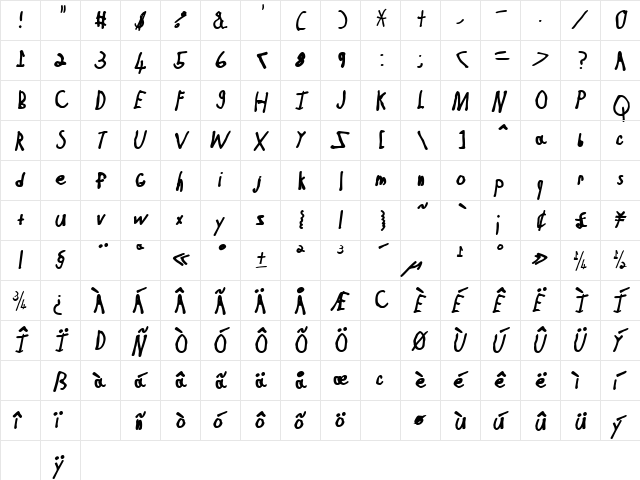
Jessica Bold-Oblique Font Preview
Jessica Bold-Oblique
Design Context for Jessica Typeface
Jessica is a composed and adaptable typeface that performs quietly and consistently across a wide range of design contexts. The dynamic lean of this cut emphasises speed and emphasis in any layout. Its bold stroke weight gives it real presence on the page.
Pro Tip: Try Jessica for annotation and caption copy alongside an upright companion — the contrast in angle creates a dynamic but ordered typographic system.